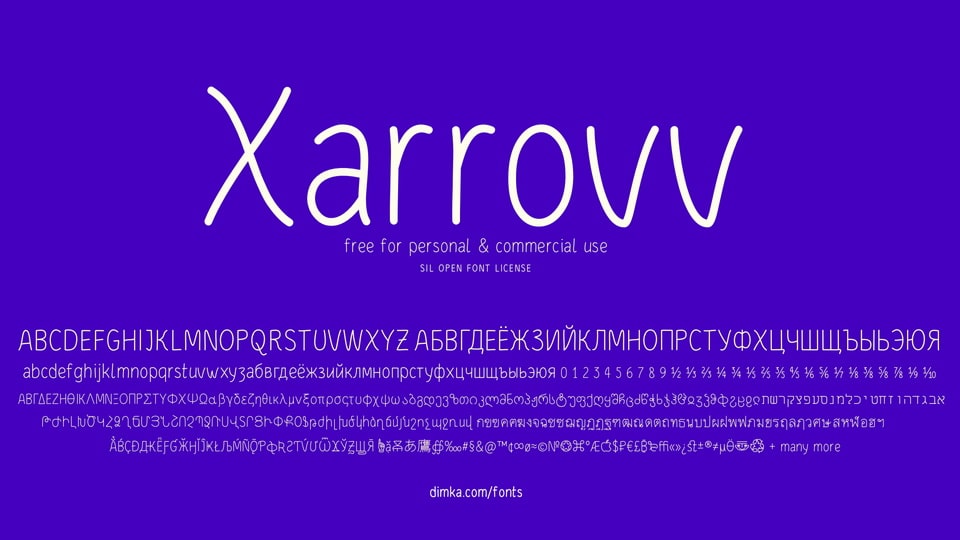
Download Xarrovv font, a simple and natural typeface that captures the precision and care of meticulous handwriting. With a subtle charm and effortless clarity, Xarrovv font brings a sense of order and elegance to your designs.
Designer: Dimka